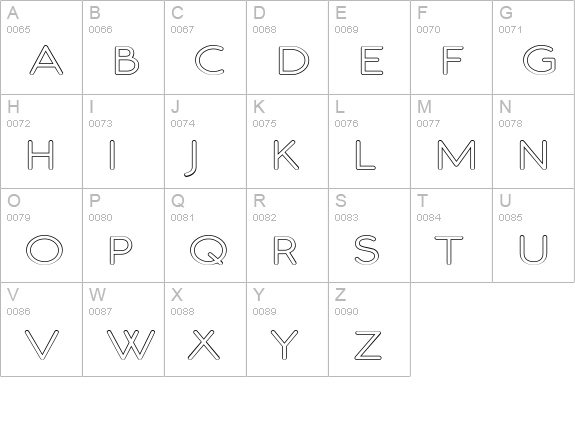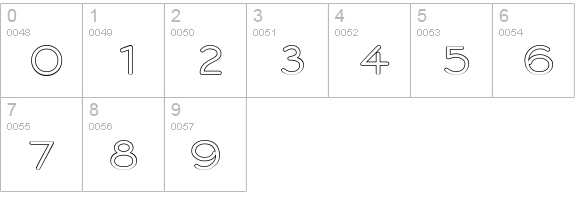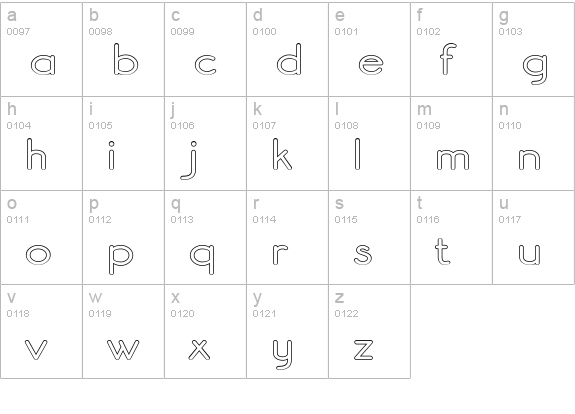
Register Sans BTN Wide Out Font Details
Register Sans BTN Wide Out is a distinctive, extended-width variant in the Register typeface family \xE2\x80\x94 well suited to design and typography projects.
Register Sans BTN Wide Out is a modern and versatile font that exudes professionalism and elegance. Its wide and bold design makes it perfect for headlines, titles, and any other attention-grabbing text. With its clean and sleek lines, this font is sure to make a lasting impression on any design project. What sets Register Sans BTN Wide Out apart is that it is not only visually stunning, but also freely available for download. You can easily access this font at FontsMarket.com, where you can download it without any cost. This means that you can enhance your designs with this beautiful typeface without breaking the bank. Whether you are working on a business presentation, a branding project, or a website design, Register Sans BTN Wide Out will effortlessly elevate your work to new heights. Its wide and bold characters make a bold statement, while still maintaining a sense of elegance and sophistication. In addition to its striking visual appeal, Register Sans BTN Wide Out also offers excellent legibility, ensuring that your message is conveyed effectively. Its carefully crafted design ensures that each letter is easily distinguishable, even at smaller sizes. So, why wait? Download Register Sans BTN Wide Out for free at FontsMarket.com and start adding a touch of modern elegance to your designs. Whether you are a professional designer or a casual hobbyist, this font is sure to inspire and impress. Don't miss out on this opportunity to enhance your projects with a high-quality typeface that won't cost you a penny.